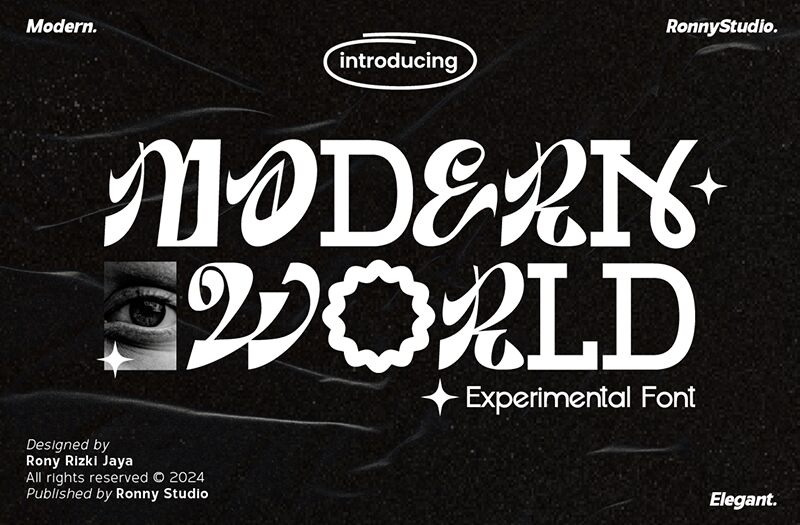
The Modern World font by Ronny Studio is a striking display typeface offering a bold and artistic flair. With its distinctive curvatures and dynamic forms, it commands attention and sets any project apart. This free font is perfect for adding a creative edge to posters, branding, and digital art. Its unique style seamlessly blends modern aesthetics with an artistic twist, making it ideal for applications that need to stand out in visual storytelling.
Explore the possibilities with the Modern World font for your next design endeavor. Download it today to infuse your work with innovation and charm. Whether used sparingly or as a focal point, this font offers versatility in both personal and professional projects. Embrace creativity with the Modern World font-your gateway to captivating designs.